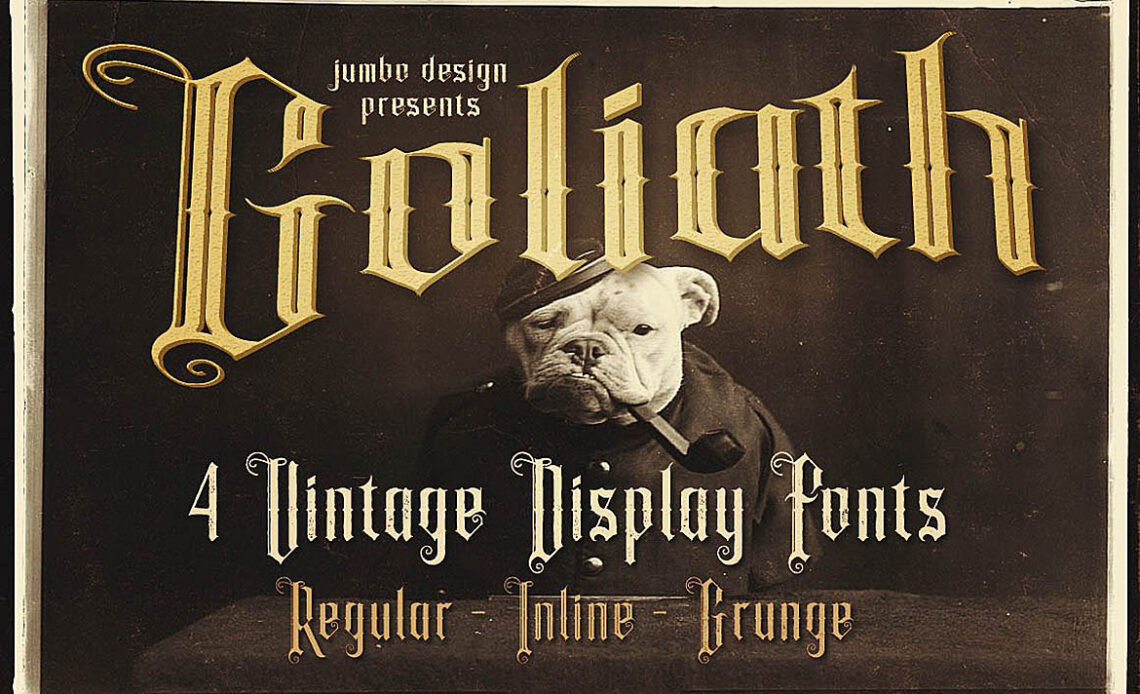
Prepare yourself to enter an extraordinary realm of creativity and self-expression where giants of typography converge to unveil the Goliath Font - a captivating display font brimming with retro charm and limitless versatility. Majestic and imposing, Goliath's blackletter elegance enchants with its enchanting ability to evoke the grandeur of bygone eras while embracing the modern spirit with timeless flair.
With a masterful blend of vintage aesthetics and contemporary appeal, Goliath Font is a versatile chameleon that flawlessly blends into any creative canvas, seamlessly complementing logos, branding projects, and an array of designs. Its diverse styles make it a master of adaptability, effortlessly adding a touch of retro magic to posters, packaging, social media graphics, and even your personal projects.
Goliath Font is not merely a collection of letters; it's a portal to a world where imagination reigns supreme. It invites you to embark on a creative journey, empowering you to craft designs that transcend the ordinary. From the moment you embrace Goliath's embrace, you'll discover a universe brimming with captivating possibilities just waiting to be unleashed.
Feel the rush of inspiration as Goliath Font's vintage charm fuses with your creative vision, igniting a symphony of aesthetics. Your designs will command attention, leaving an indelible mark on your audience, whether you're captivating them with bold logos, enchanting posters, or captivating social media graphics. Goliath Font is your key to unlocking a realm where creativity thrives and legacy is carved in every stroke.